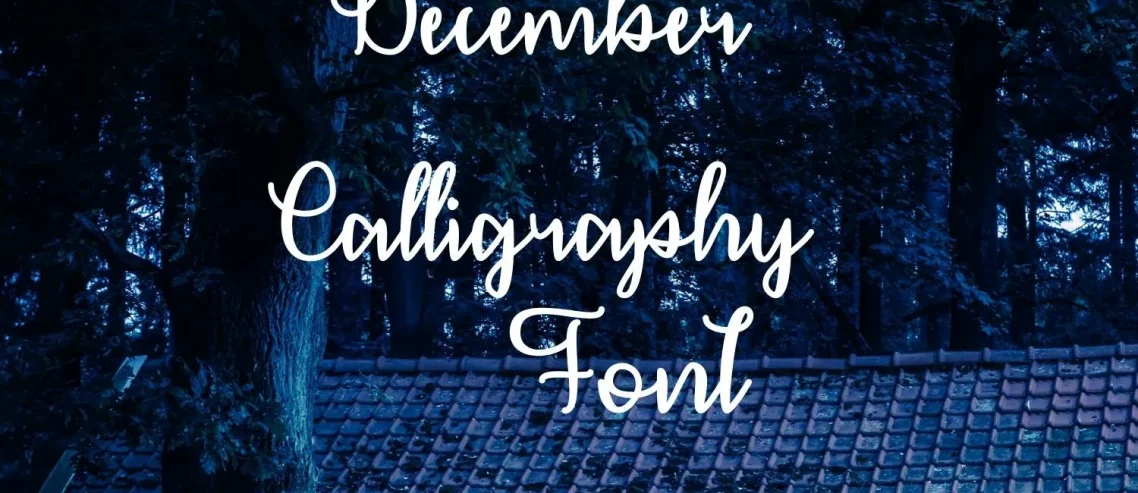
December Calligraphy Font is a beautiful and unique font that can be used for various purposes. It is perfect for invitations, announcements, headers, and other creative projects. This guide will provide you with everything you need to know about this font so that you can use it in your own projects.
December Calligraphy Font Info
| Name | December Calligraphy Font |
| Designer | Sean Christopher |
| Style | Calligraphy |